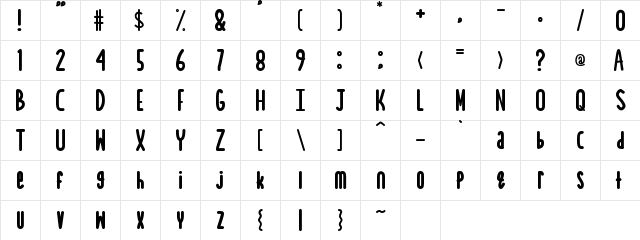
Sea Salt Regular
Design Context for Sea Salt Typeface
Sea Salt takes a measured approach to typography — its balanced proportions and neutral character make it a reliable workhorse for both digital and print work.